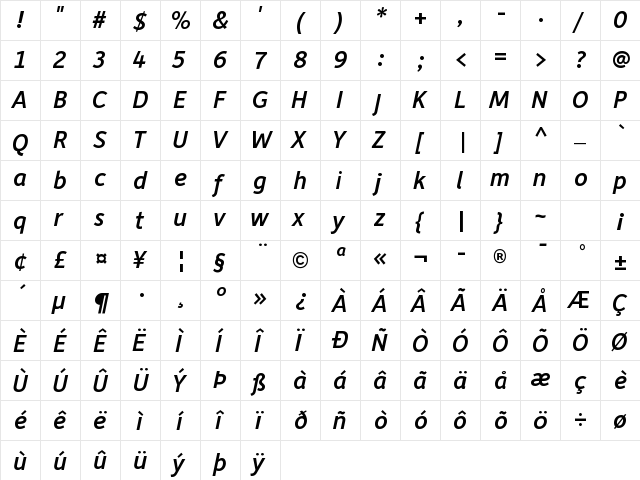
Depot Medium Italic
| Foundry | C.Dickinson |
| Designer | C.Dickinson |
Design Context for Depot Typeface
Depot offers clean, dependable letterforms without strong stylistic allegiance, making it a practical choice for designers who need flexibility. The slanted form adds forward momentum and visual energy.
Pro Tip: Try Depot for annotation and caption copy alongside an upright companion — the contrast in angle creates a dynamic but ordered typographic system.